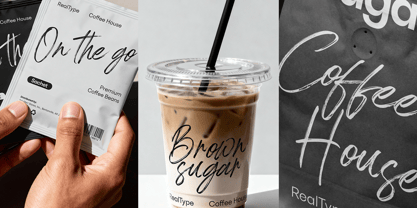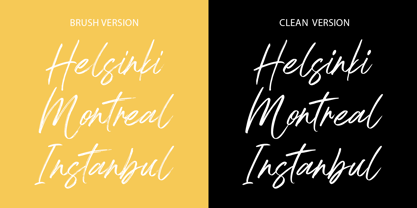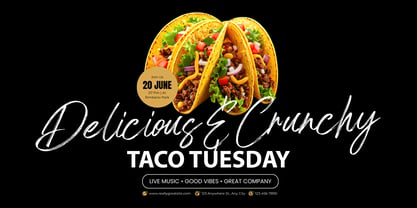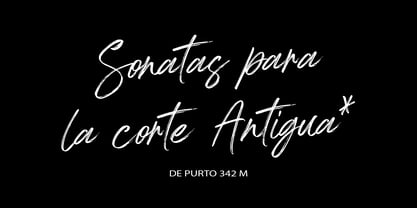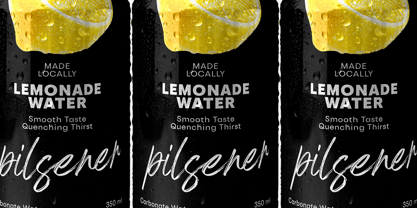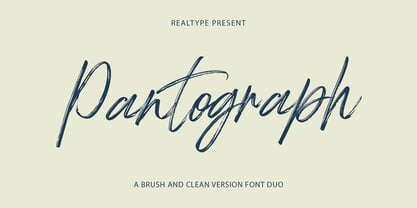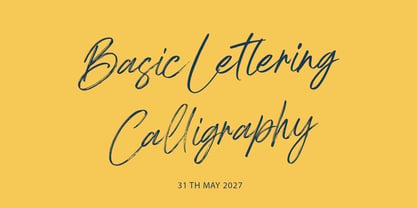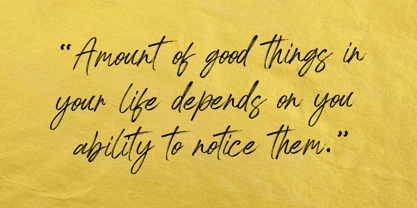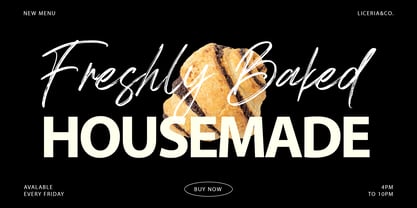
Pantograph
by Realtype
The Pantograph Font Family was designed by Alam Syahril and published by Realtype. Pantograph contains 2 styles and family package options. More about this family
Unleash your creativity with Pantograph, a premium font duo designed to bring your layouts to life. This collection features a raw, textured brush version alongside a sleek, clean alternative. Every character mimics natural hand movement, striking the perfect balance between casual elegance and modern artistic expression.
Whether you want a gritty, authentic ink look or a refined, modern script, this duo adapts seamlessly to your creative vision.
Hello! I'm Alam Syahril and I'm a font designer at RealType Studio. I tend to create natural brush style fonts. I spent a lot of time practicing writing fonts and I was ready with my passion for creating my handwritten fonts with a brush and I created my first font in 2017 and I am very happy with the results of my work which can now be used by creative designers all over world.